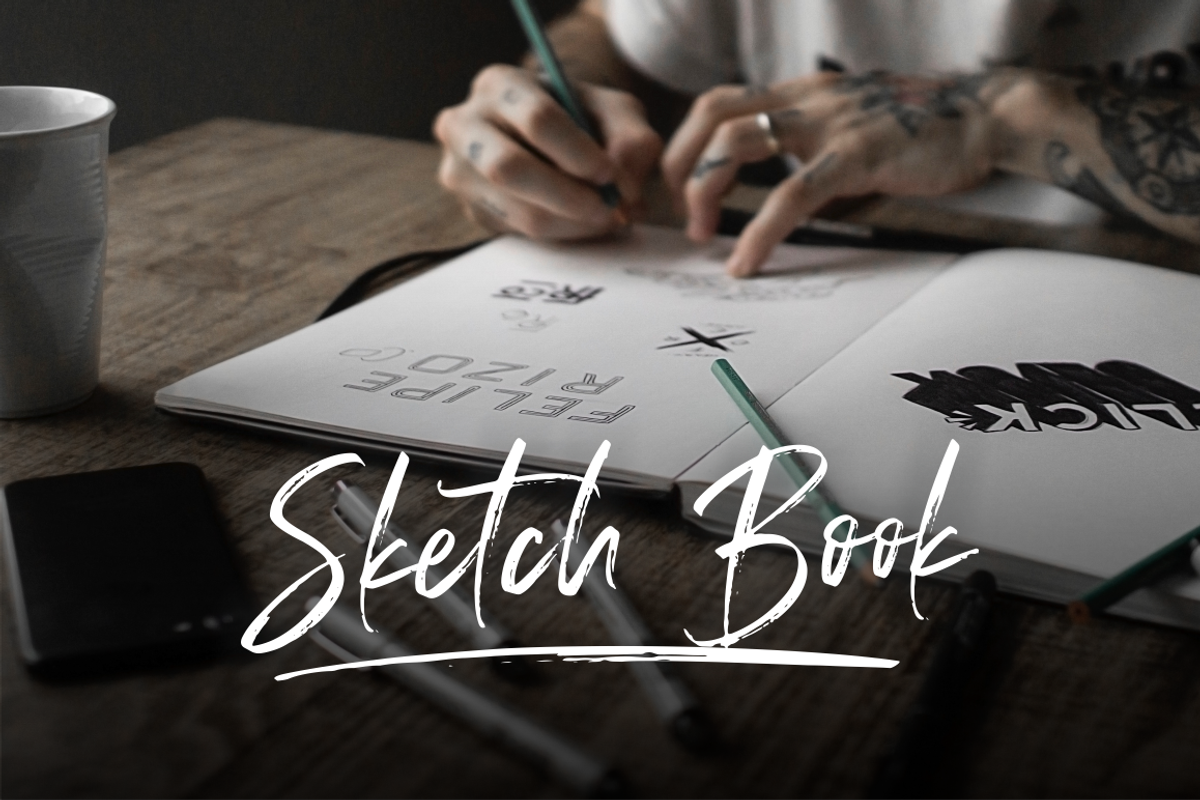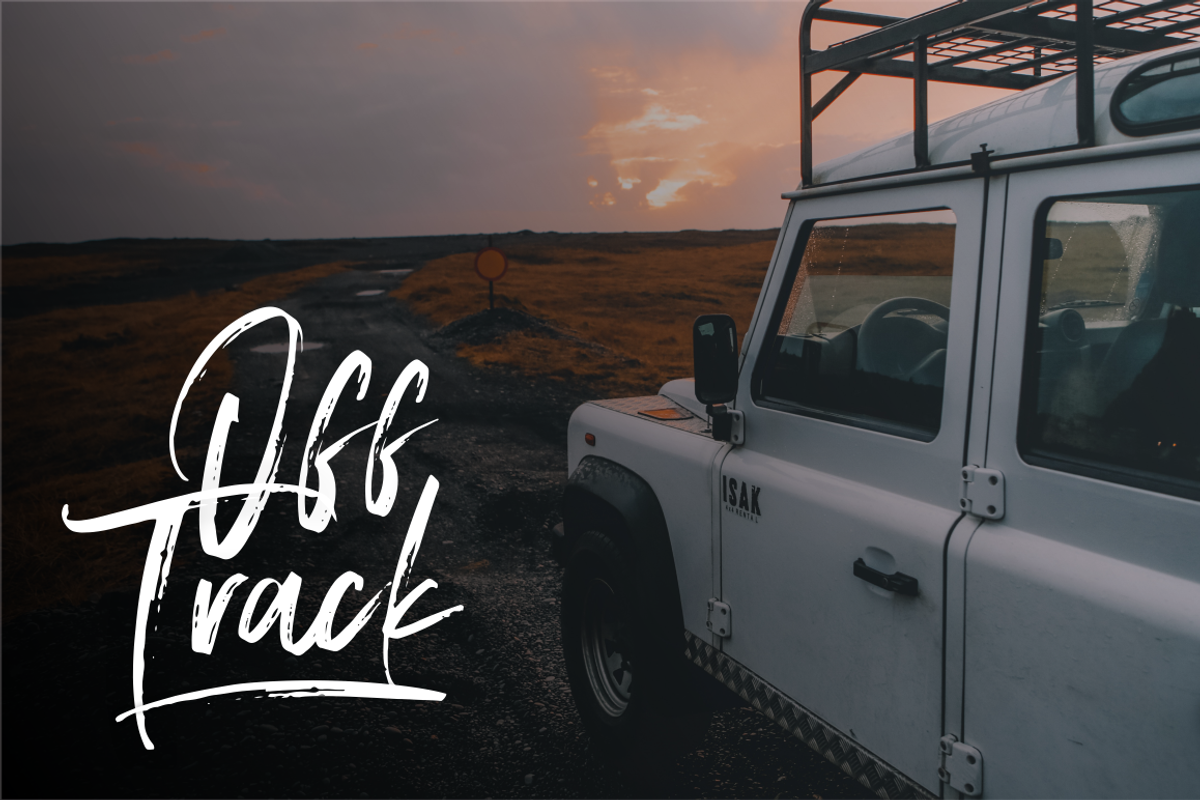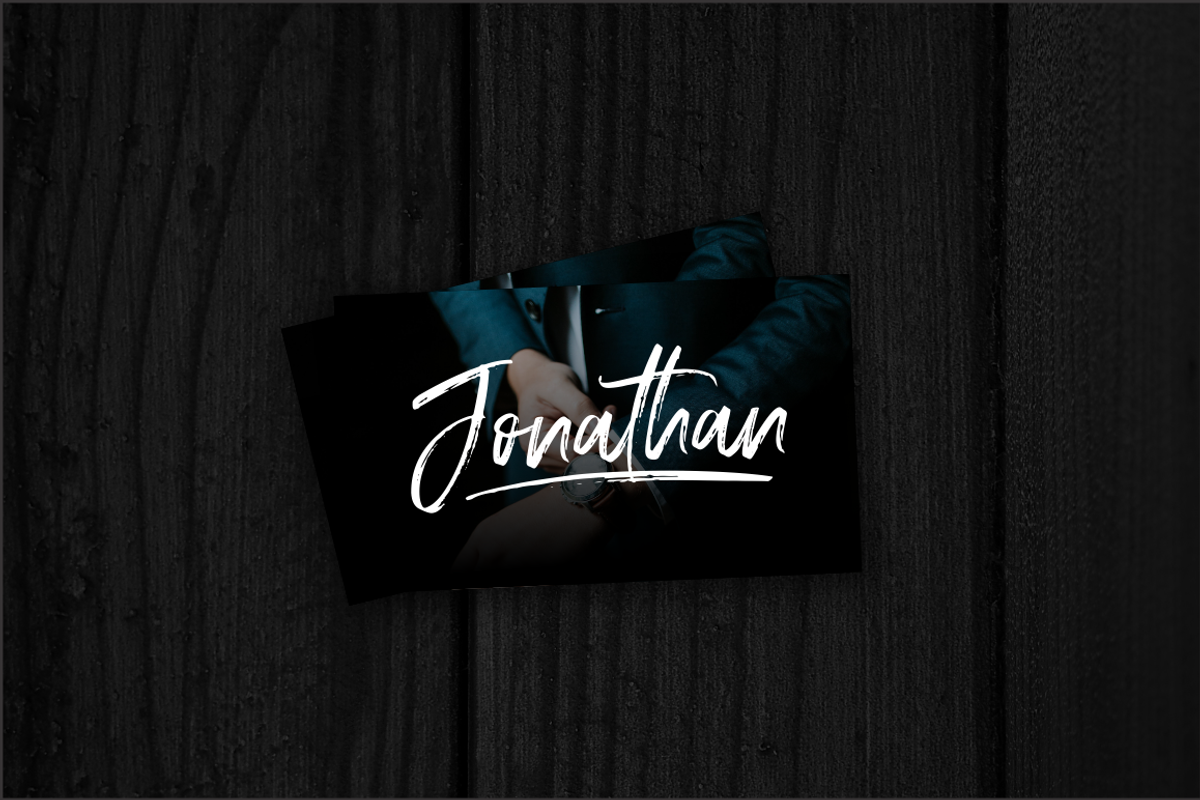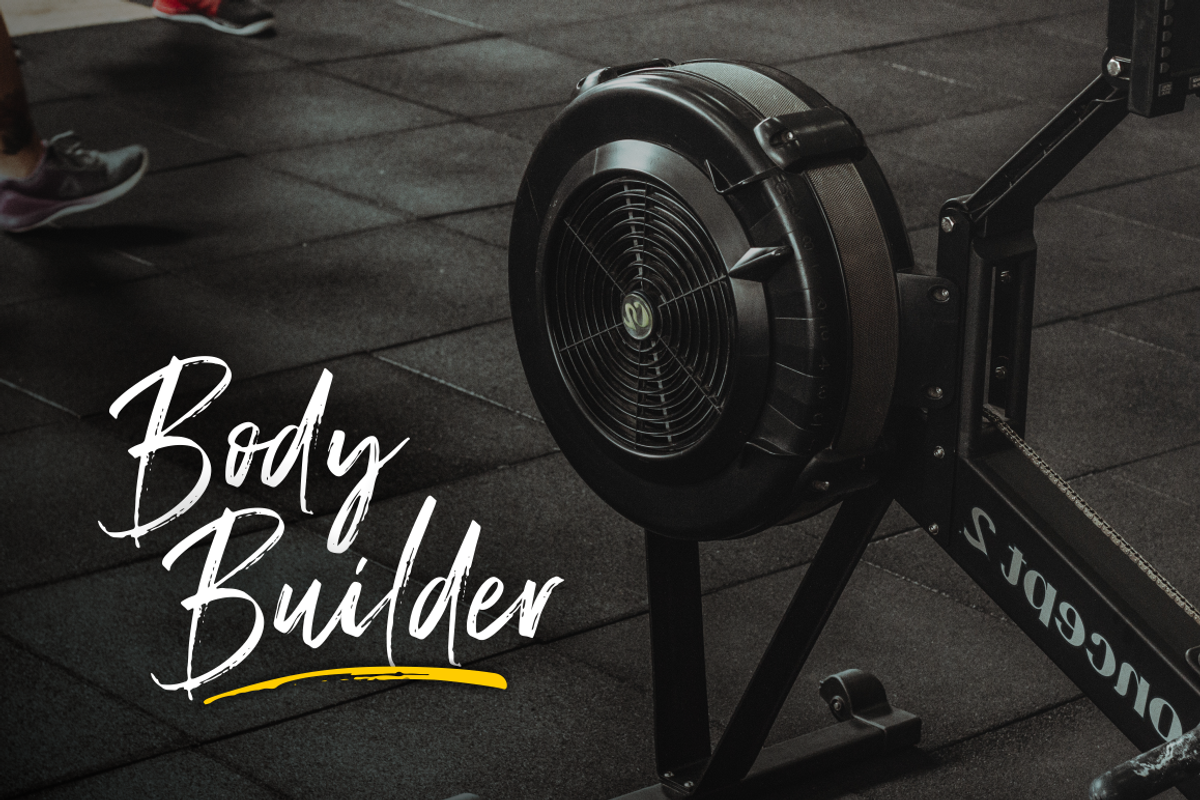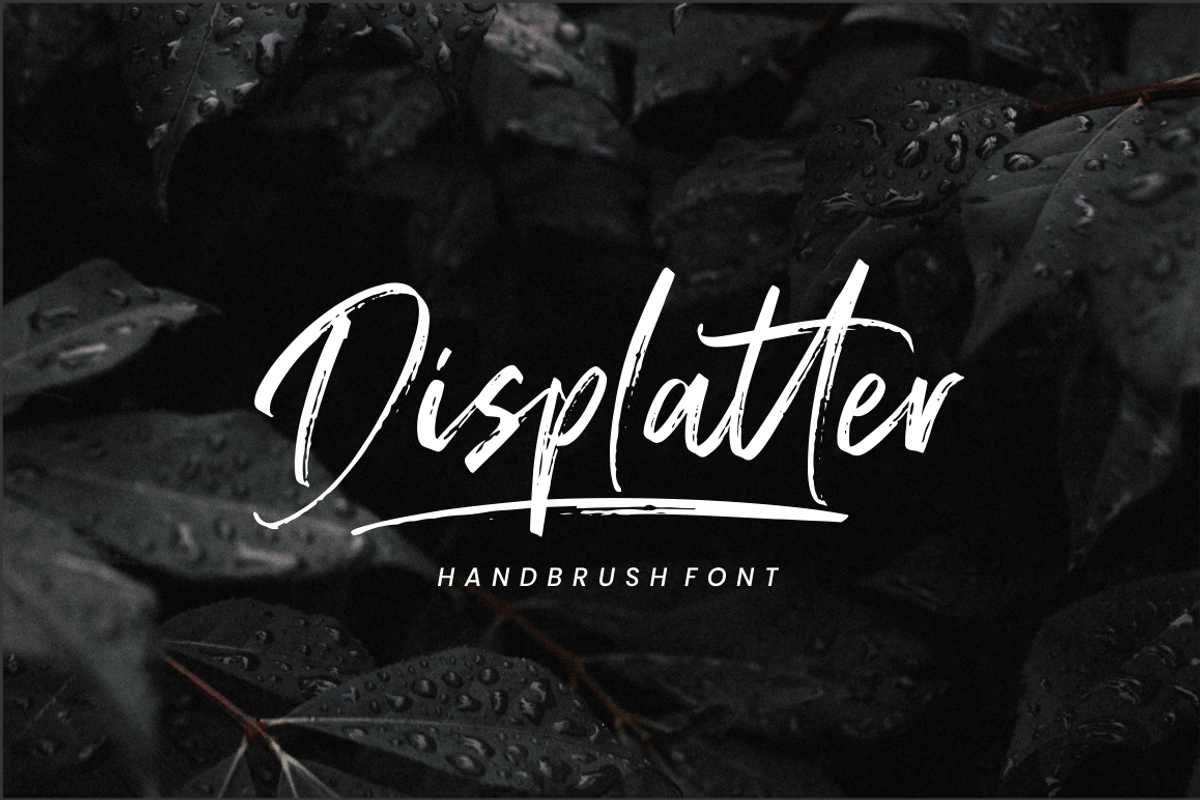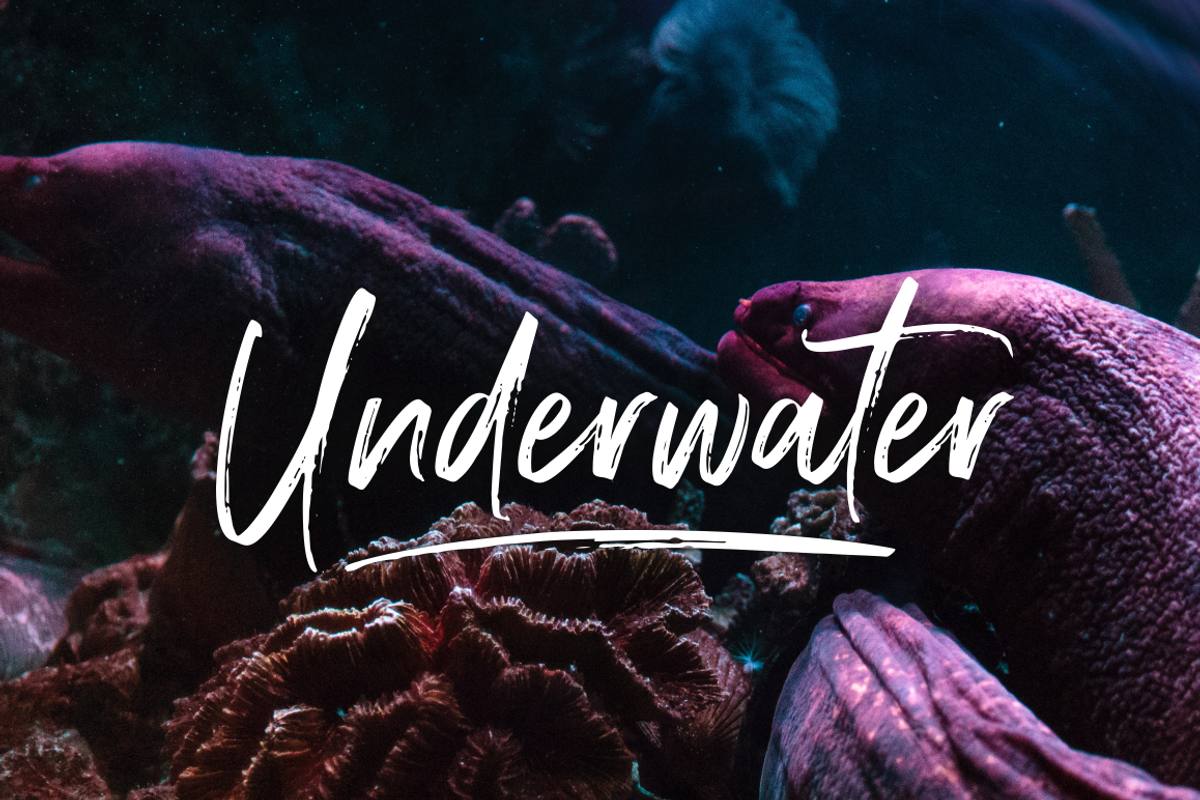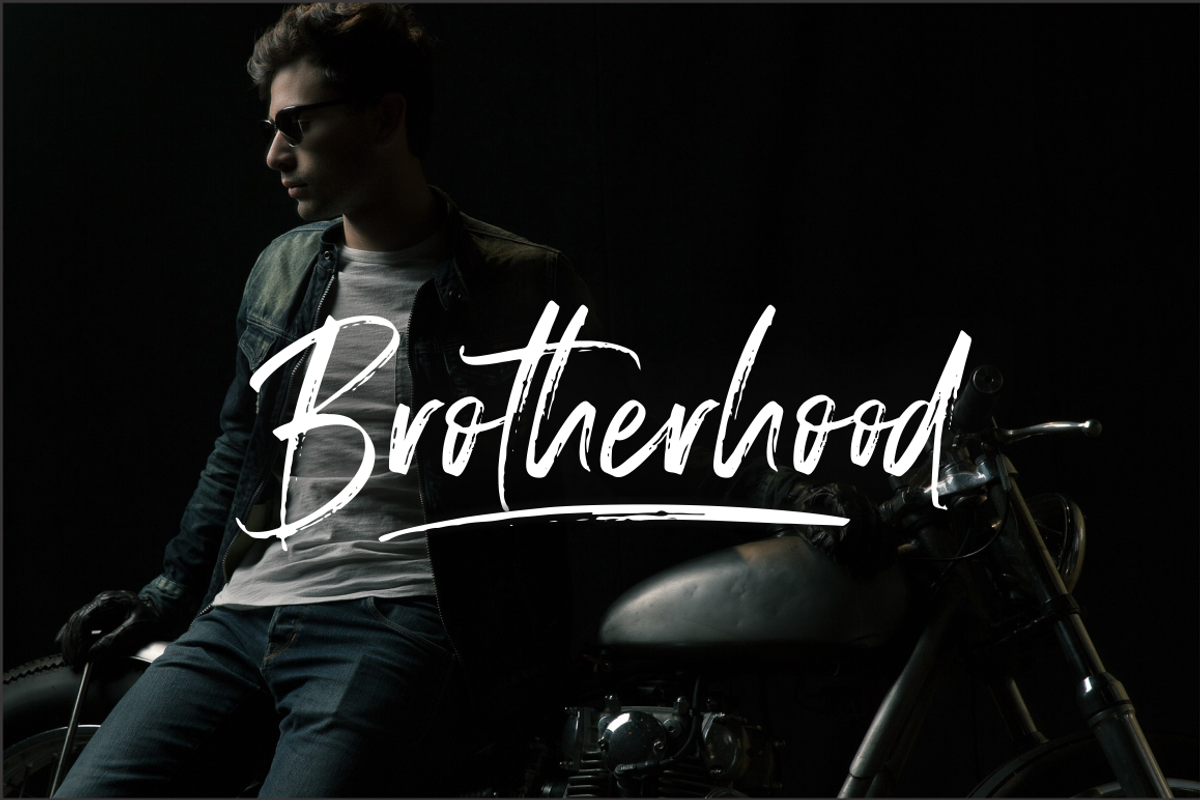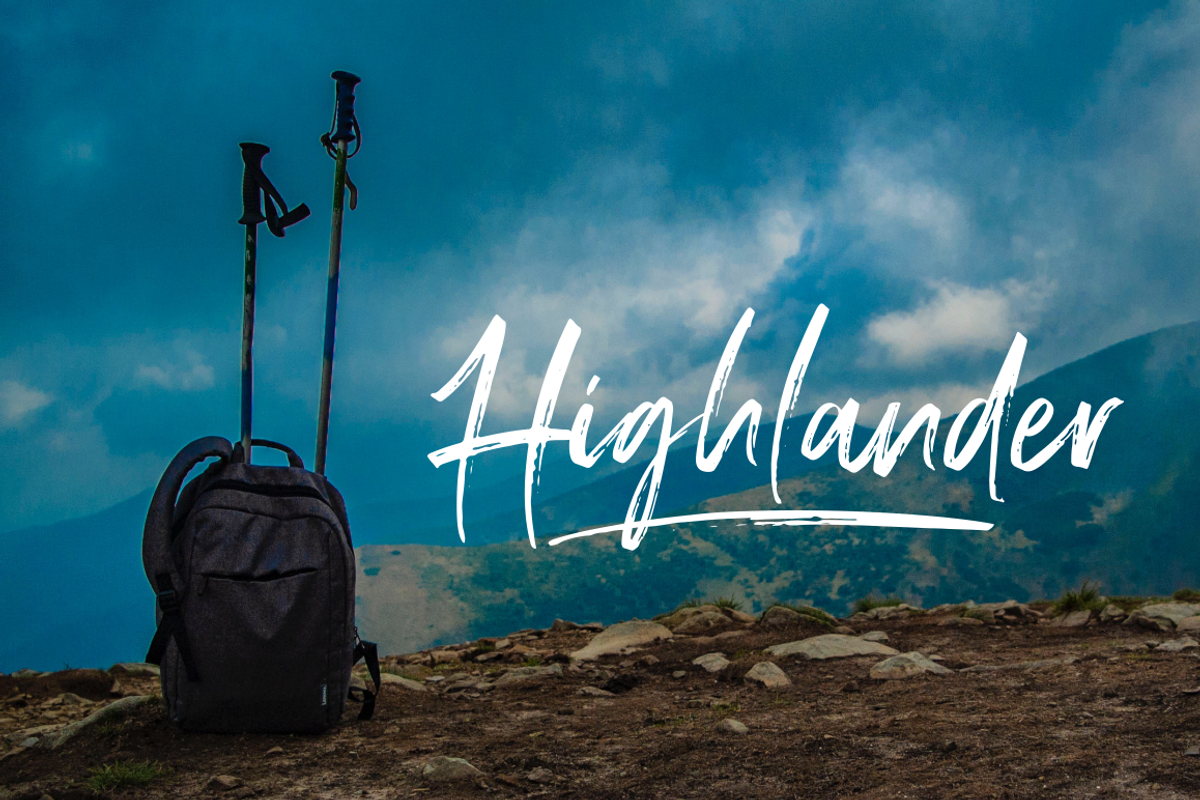
Displatter - Handbrush Font
Displatter is a natural handbrused font, this font Is perfect for logo, invitation, stationery, wedding designs, social media posts, advertisements, product packaging, product designs, label, photography, watermark, special events or anything. Displatter comes with full set of uppercase and lowercase letters, multilingual symbols, numerals, punctuation.
- Displatter comes with full set of uppercase and lowercase letters, multilingual symbols, numerals, punctuation.
Why Displatter - Handbrush Font is worth a look
Displatter - Handbrush Font by Sronstudio fits naturally into Branding, posters, packaging, typography.